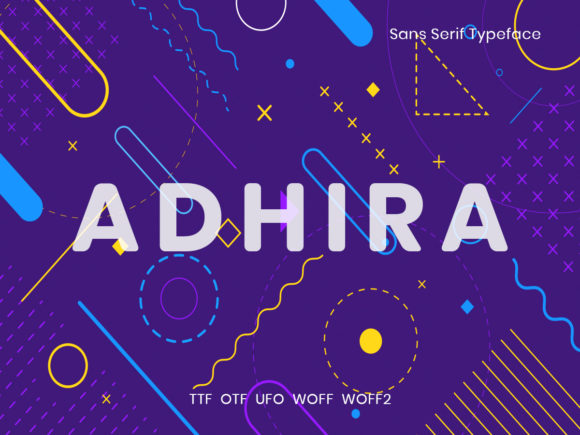
The Adhira Font: A Minimalist’s Dream Come True
I’ll never forget the time I was working on a project for a client who wanted a clean, modern look. I had spent hours browsing through font libraries, but nothing seemed quite right. That was until I stumbled upon the Adhira font. This minimal and neat sans serif font has been a game-changer for me, and I’m excited to share it with you.
- ✨ Clean and simple design: Adhira’s minimalistic approach makes it perfect for a wide range of projects.
- ✅ Highly versatile: From digital media to print materials, Adhira fits in seamlessly.
- 💡 Instant recognition: The font’s unique touch gives it a distinctive feel that stands out from more generic sans serifs.
While Adhira is an excellent font, there are a few things to keep in mind: 🤔
- ⚠️ Limited emotional range: Due to its clean design, Adhira might not be the best fit for projects requiring a lot of emotional depth or personality.
- ⚠️ Not ideal for body text: While it’s legible, Adhira shines brightest as a display or headline font.
One of the exciting aspects of Adhira is its support for OpenType features. This allows for:
- Stylistic alternates: Switch between different versions of letters for varied looks.
- Glyphs: Access additional symbols and icons that can enhance your designs.
The Backstory of Adhira
The Adhira font was crafted with the modern designer in mind. Its creator aimed to produce a font that was clean, versatile, and highly legible, whether on a screen or in print. The name “Adhira” reflects a sense of clarity and directness, qualities that are evident in its design.
Q: What makes Adhira unique?
A: Adhira’s uniqueness lies in its minimalist design combined with its high versatility, making it suitable for a wide range of projects.
Q: Is Adhira suitable for body text?
A: While Adhira is legible, it’s primarily designed as a display or headline font. For body text, you might prefer a font with more character variation.
Q: Does Adhira support OpenType features?
A: Yes, Adhira supports OpenType features, including stylistic alternates and glyphs, which can enhance your typography.